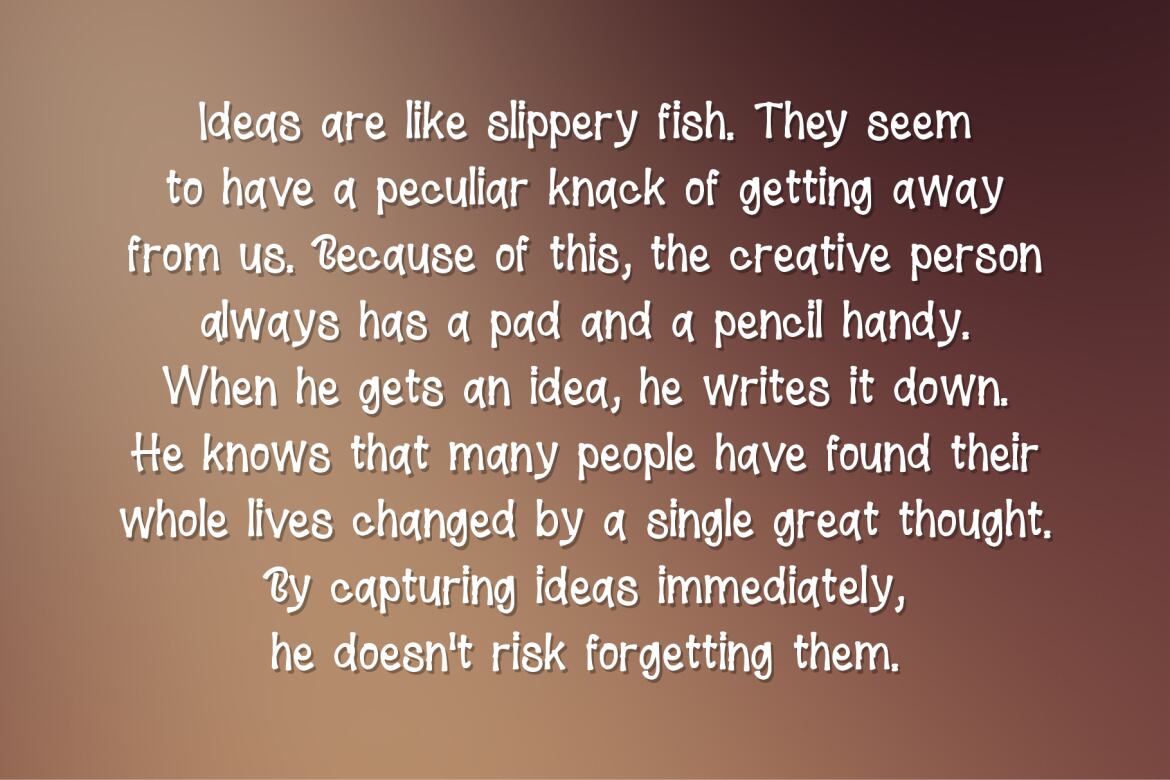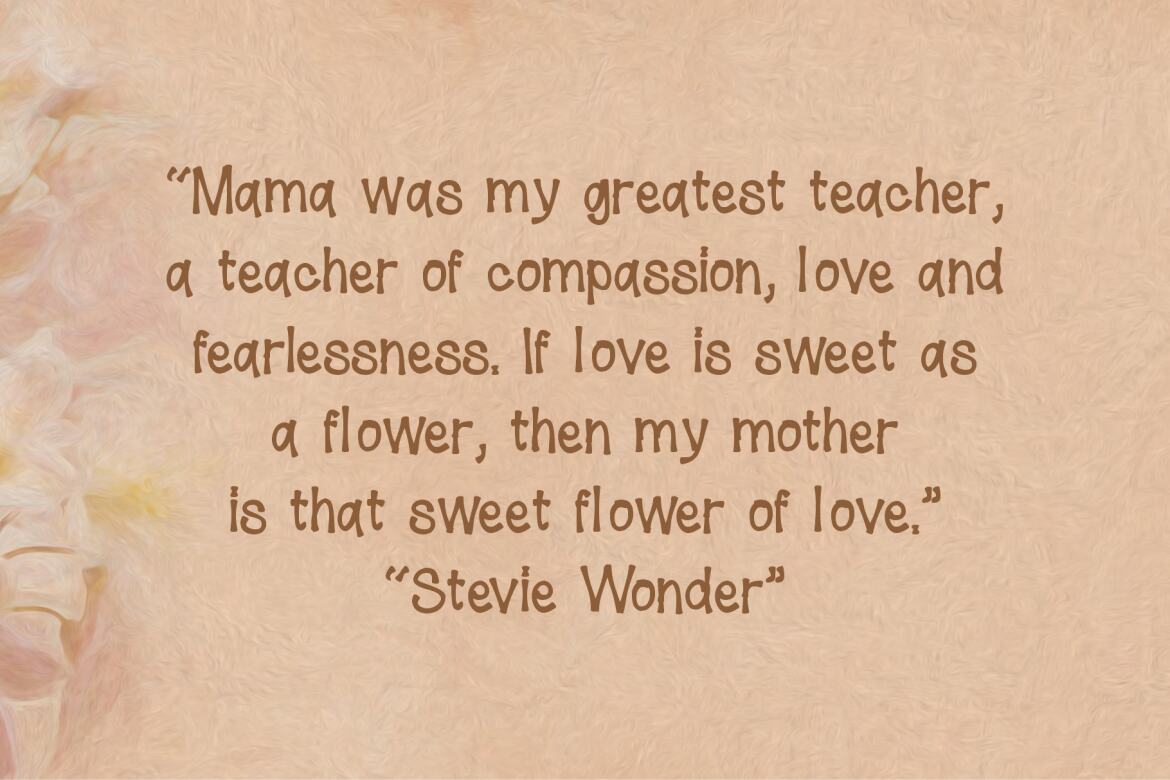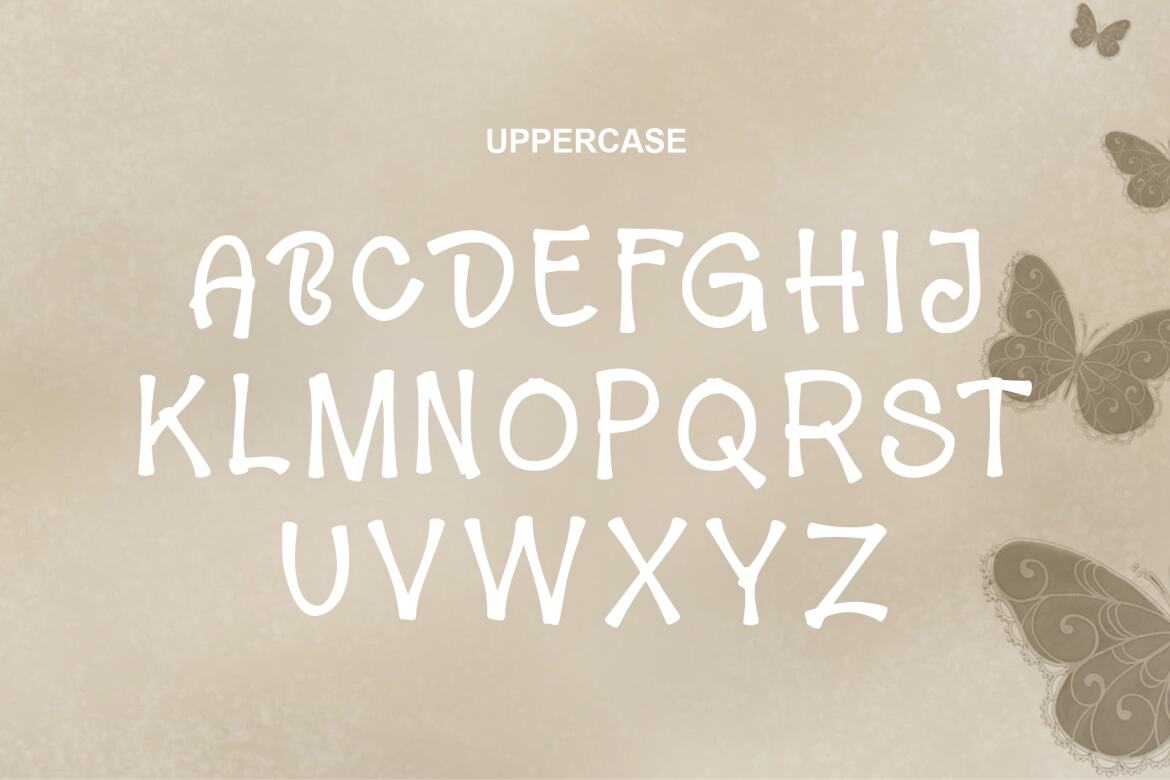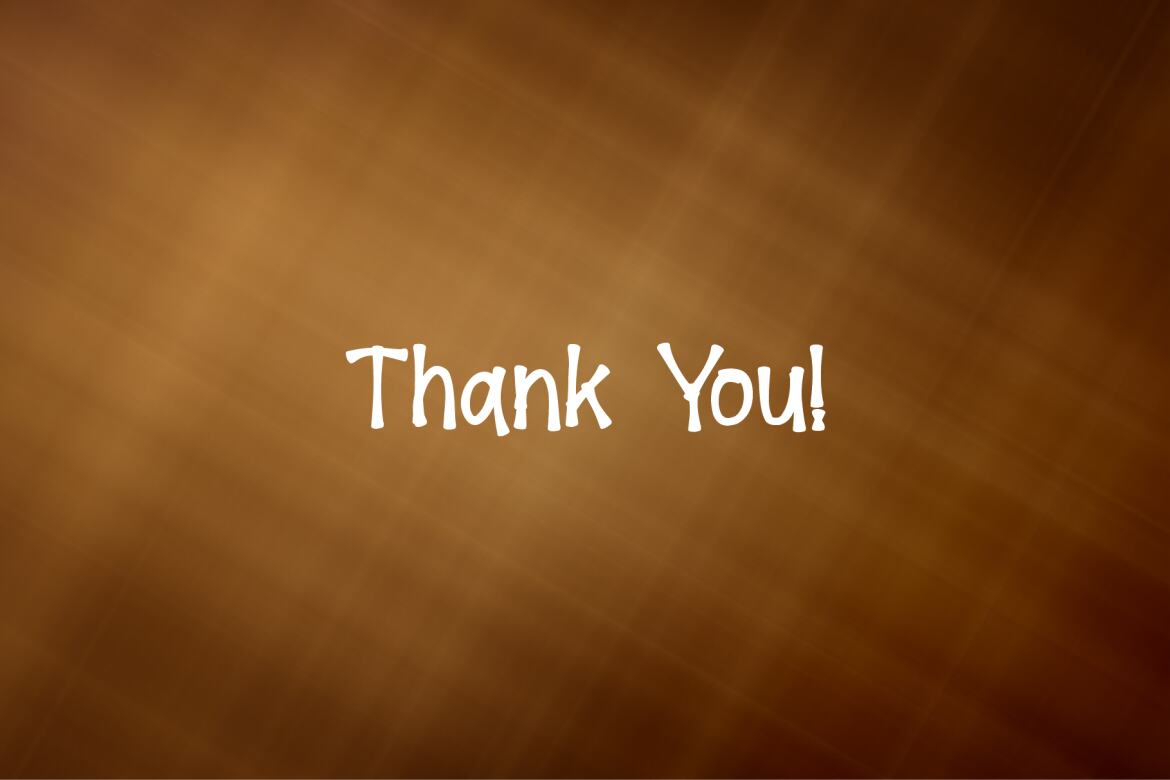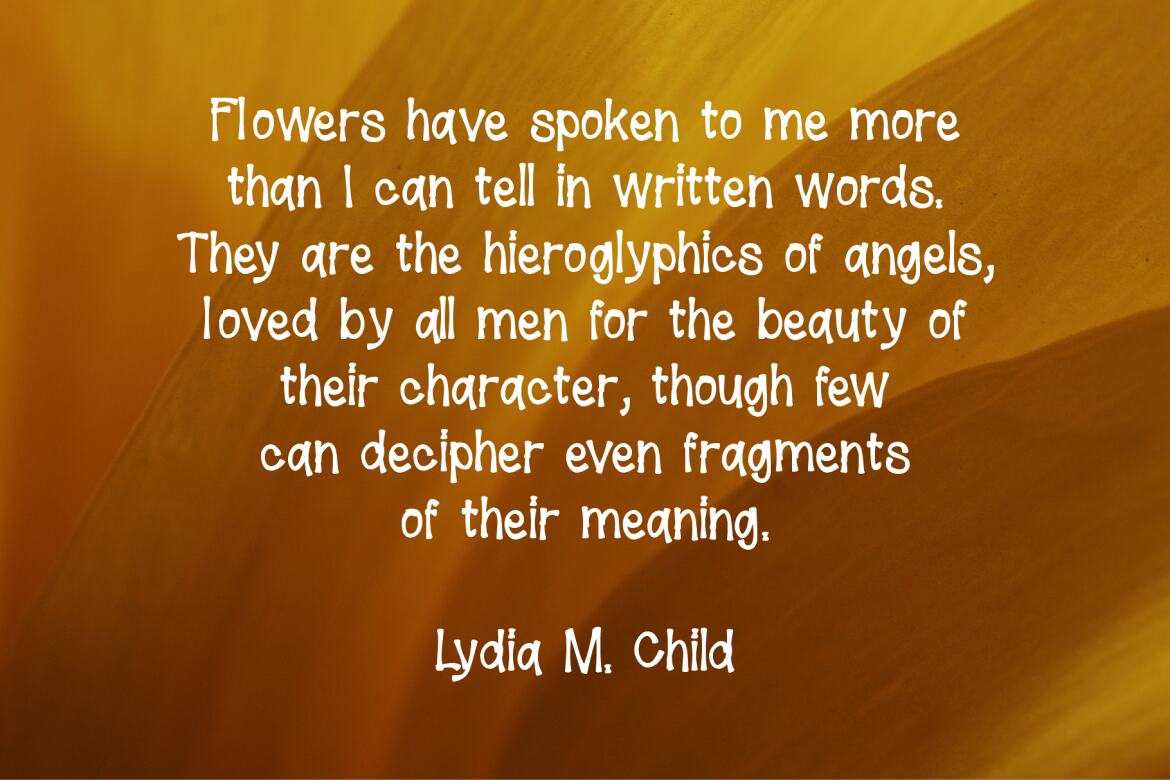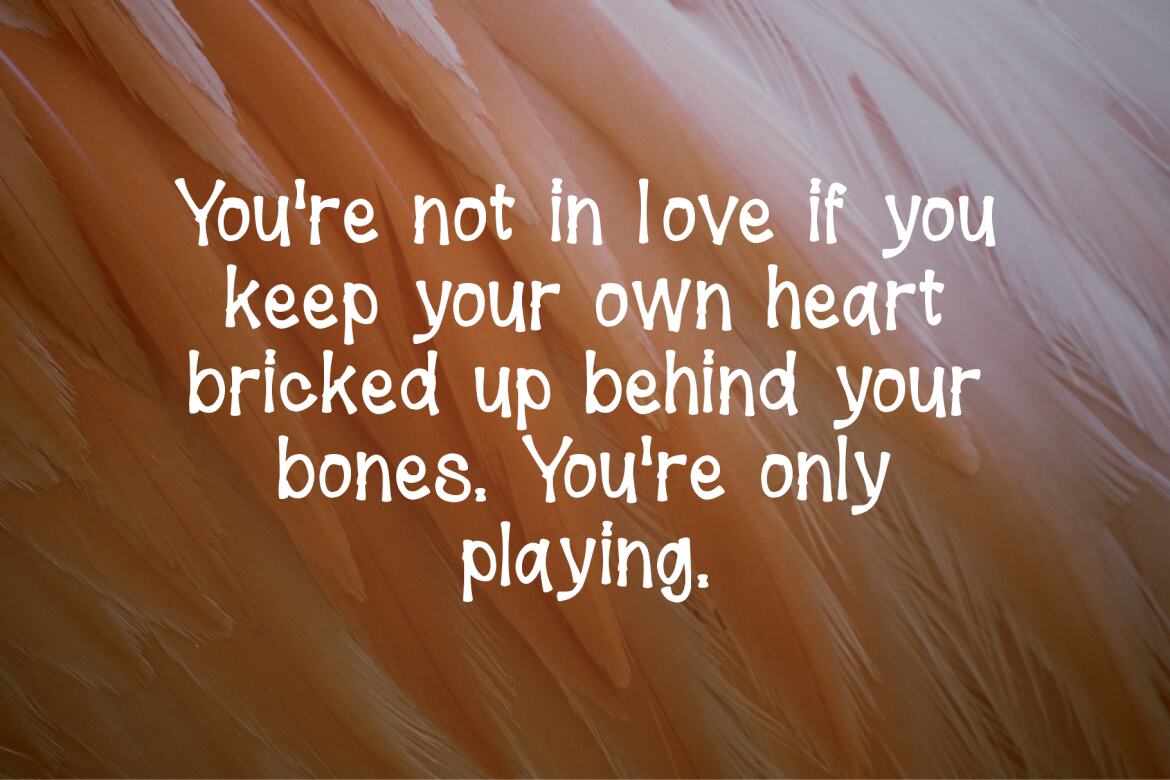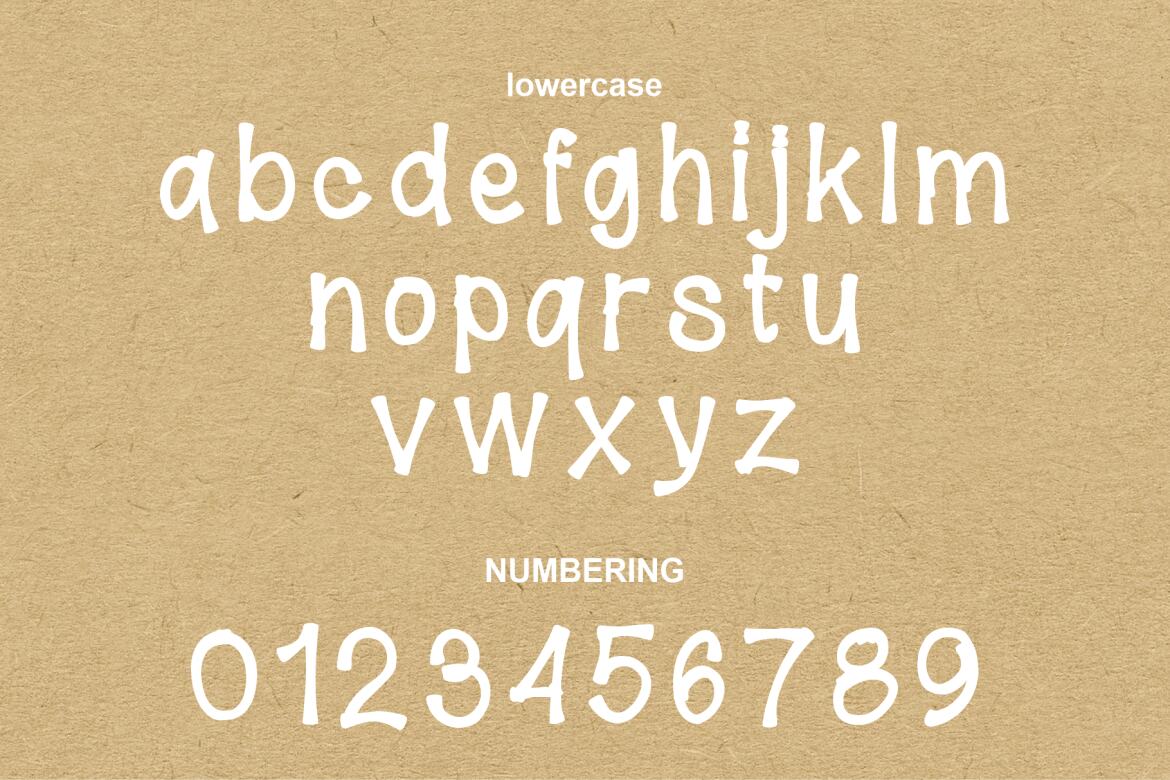
Bonds FREE Font
Bonds made for text display purposes inspired by the trends. We crafted this font for your design project. Support Multilanguage and you can easily create a cool logo, branding, and promotion with this font. Marcia brings a modern and strong impression to your design make this font suitable as the main text / header text on a website or layout design.